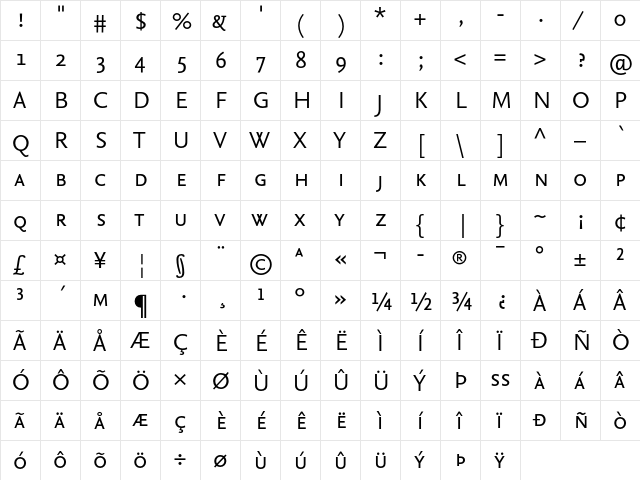
NexusSans-RegularSC Regular
Design Context for NexusSans-RegularSC Typeface
NexusSans-RegularSC takes a measured approach to typography — its balanced proportions and neutral character make it a reliable workhorse for both digital and print work.
Pro Tip: Use NexusSans-RegularSC in both headline and body roles to test its range before committing to a single application.